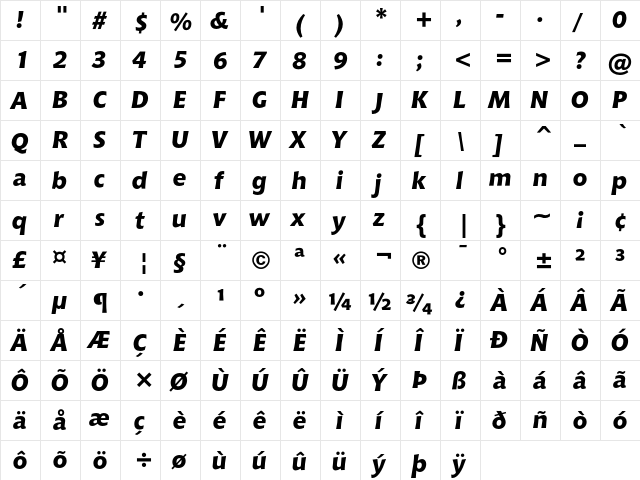
Bitstream Chianti Extra Bold Italic Font Preview
Design Context for Bitstream Chianti Typeface
Bitstream Chianti takes a measured approach to typography — its balanced proportions and neutral character make it a reliable workhorse for both digital and print work. The slanted form adds forward momentum and visual energy. Its bold stroke weight gives it real presence on the page.
Pro Tip: Try Bitstream Chianti for annotation and caption copy alongside an upright companion — the contrast in angle creates a dynamic but ordered typographic system.